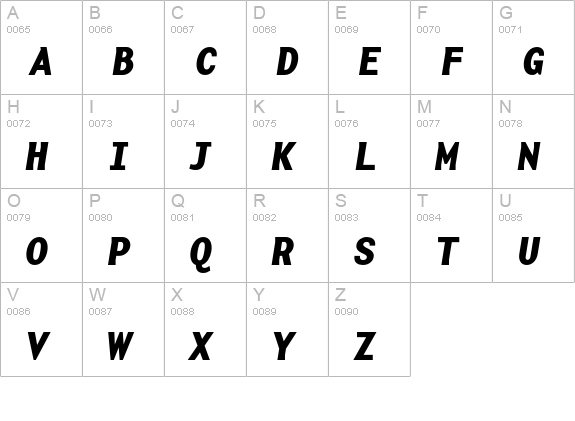
BaseMonoWideBoldItalic Font Details
BaseMonoWideBoldItalic is a modern and bold typeface designed for those seeking a strong and eye-catching look in their designs. With its wide characters and bold weight, this font exudes confidence and sophistication. The italic style adds a touch of elegance and flair, making it perfect for titles, headlines, and branding projects. This font is available for free download at FontsMarket.com, where you can easily access and incorporate it into your projects. Whether you're working on print materials, websites, or digital designs, BaseMonoWideBoldItalic is a versatile choice that will make your text stand out. With its clean lines and distinctive style, this font is sure to make a statement and leave a lasting impression on your audience.